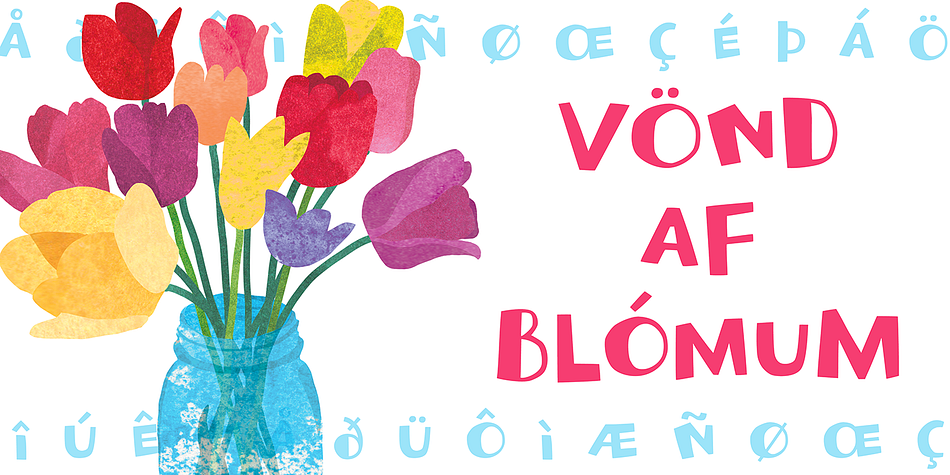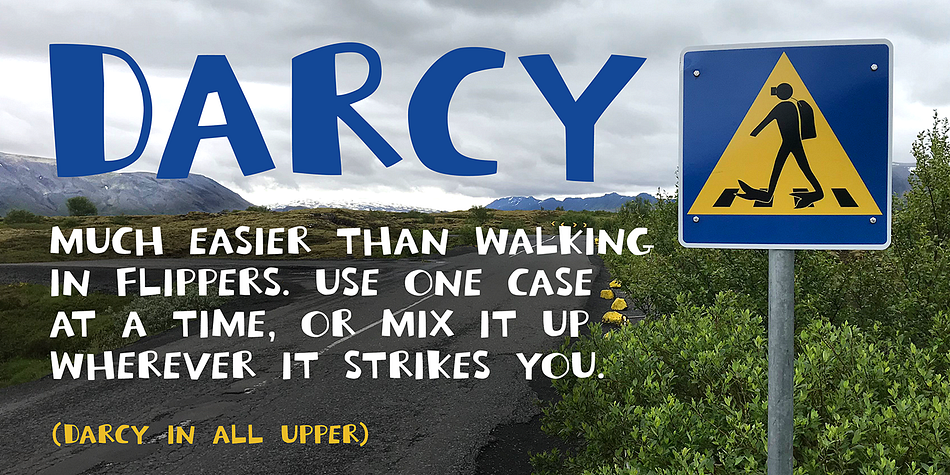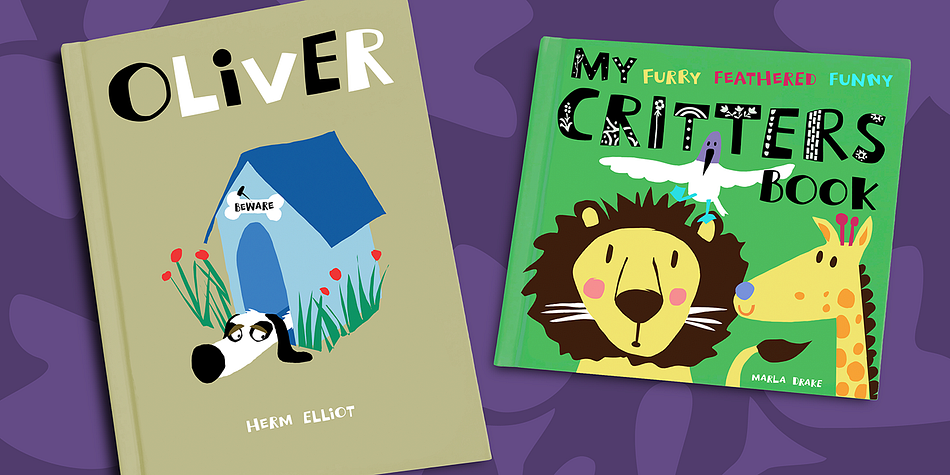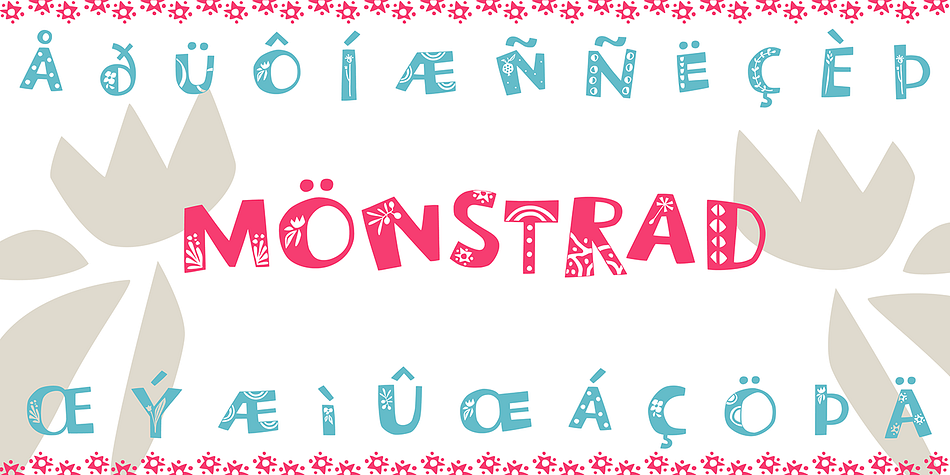
Designed by Amy Dietrich, Darcy is a hand display and dingbat font family. This typeface has three styles and was published by Atlantic Fonts.
Darcy is bold and exuberant. As an all-cap family (exception “i”), every letter has an artsy, handmade alternate. For the most joyful bounce, choose all lower or mix up the cases. For a more even baseline, go with all uppercase. Darcy Prints has gestural, organic motifs and patterns, including leaves, grasses, flowers and abstract shapes. Each playful letter has two options with different looks easily available in upper/lower places. Darcy Designs is a cheerful picture font adapted from 26 of the hand-drawings in Darcy Prints. Darcy family is based on hand-lettered cards the designer makes for friends. Darcy family lends itself to products that celebrate warmth, creativity, and a zest for humor and fun!